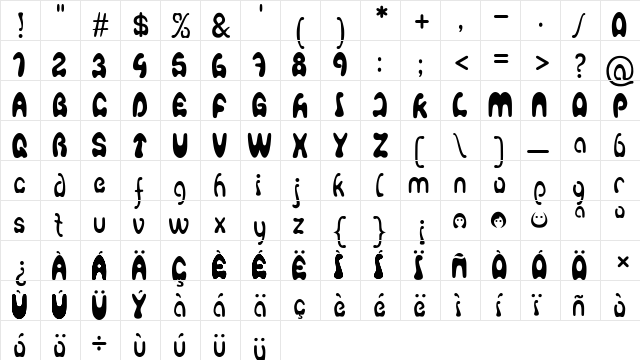
Agafont Regular
Design Context for Agafont Typeface
Agafont is a composed and adaptable typeface that performs quietly and consistently across a wide range of design contexts.